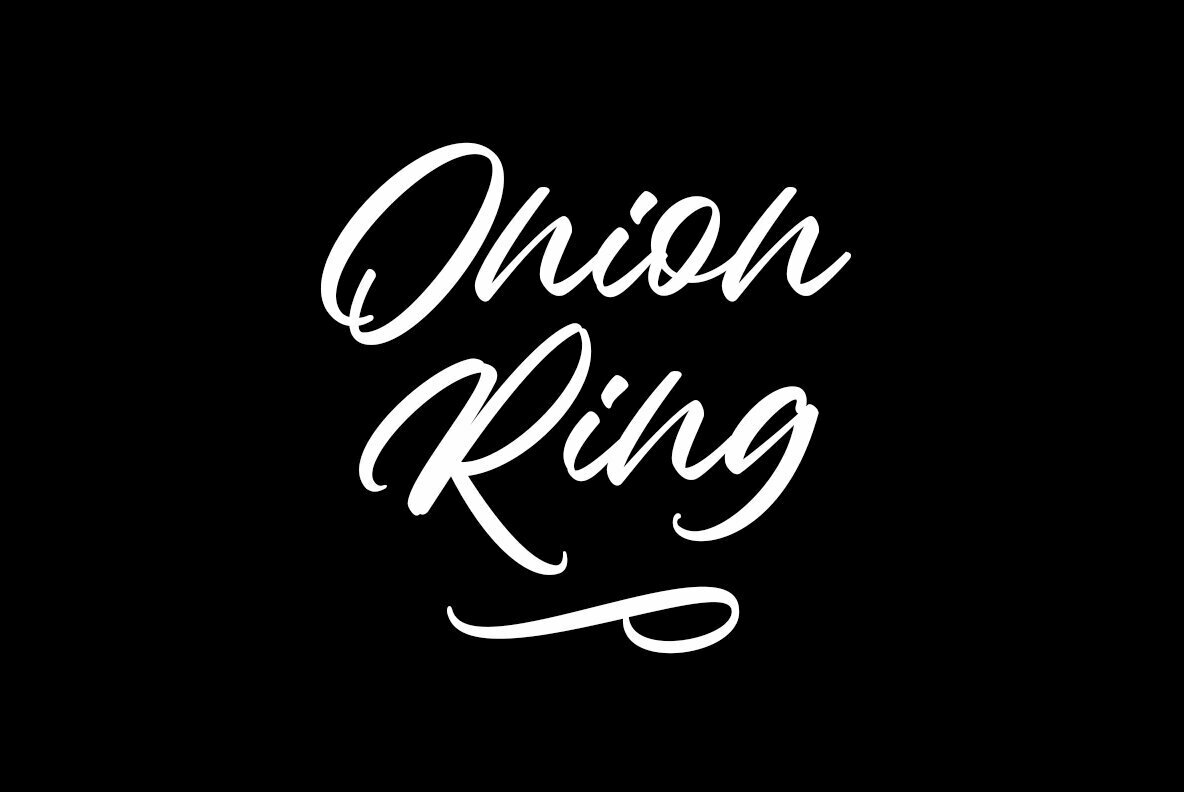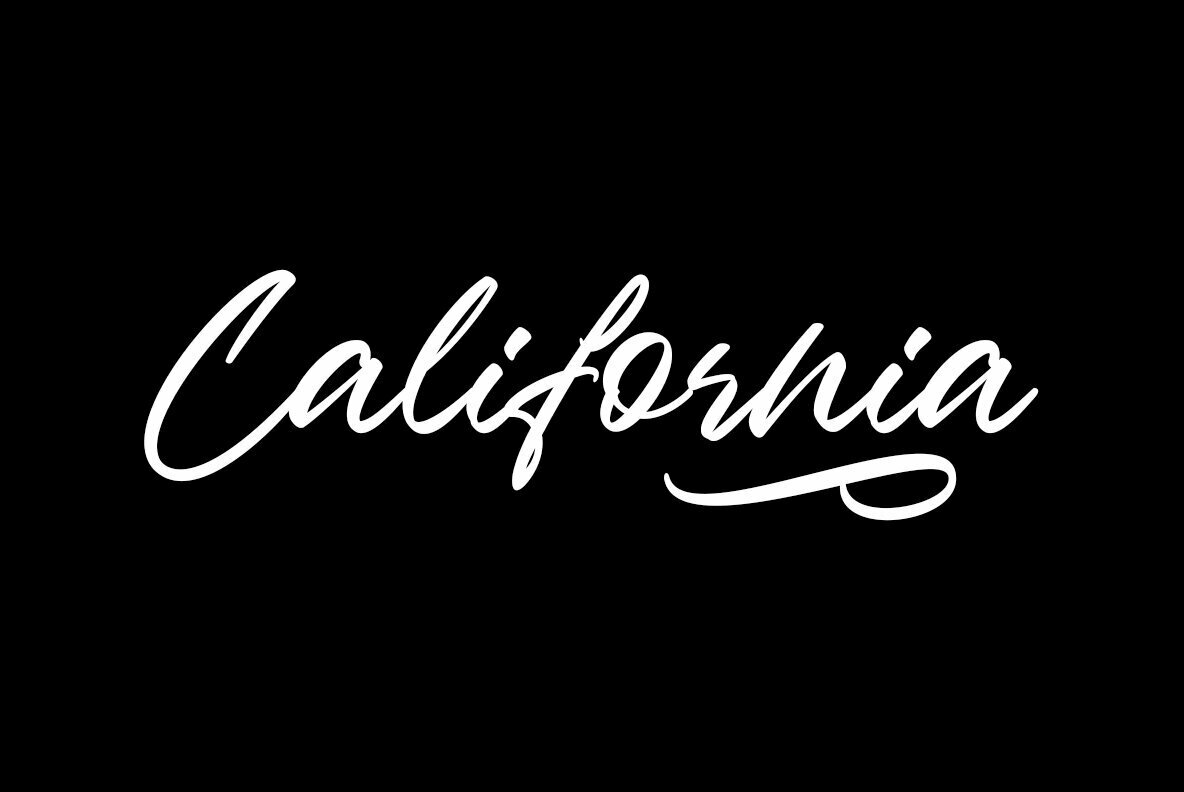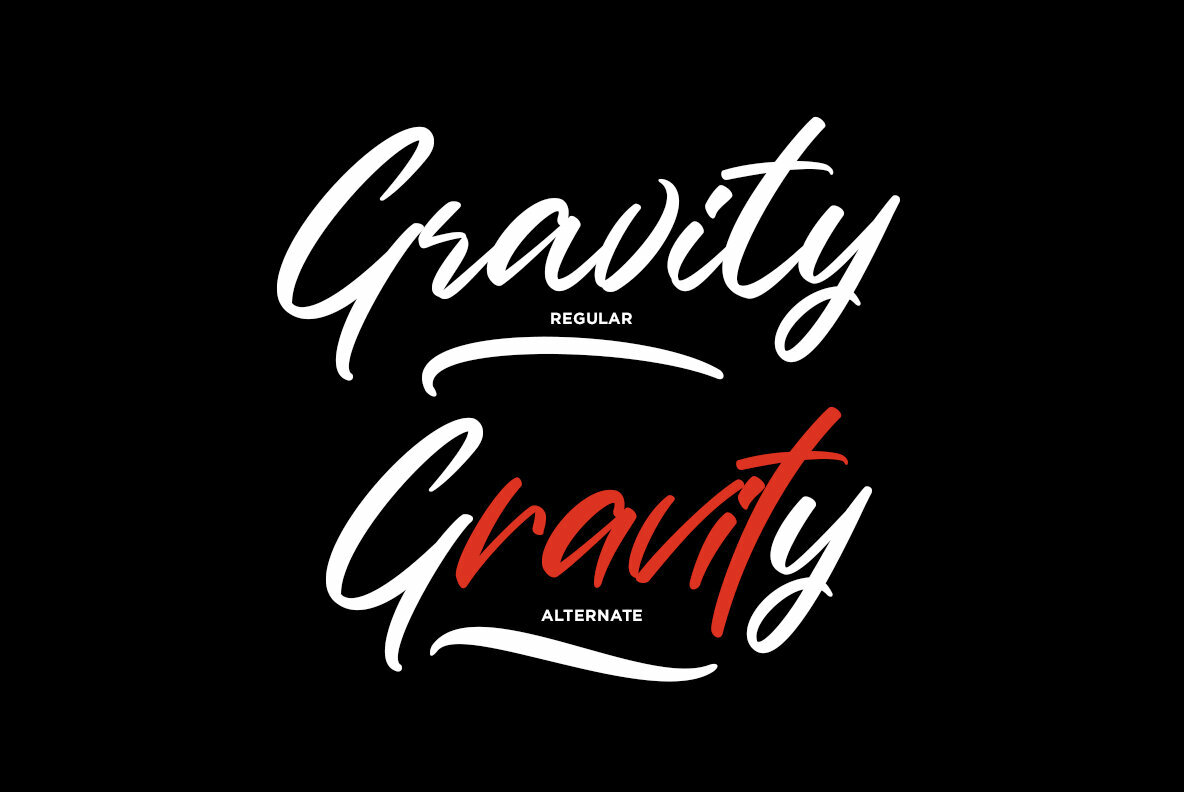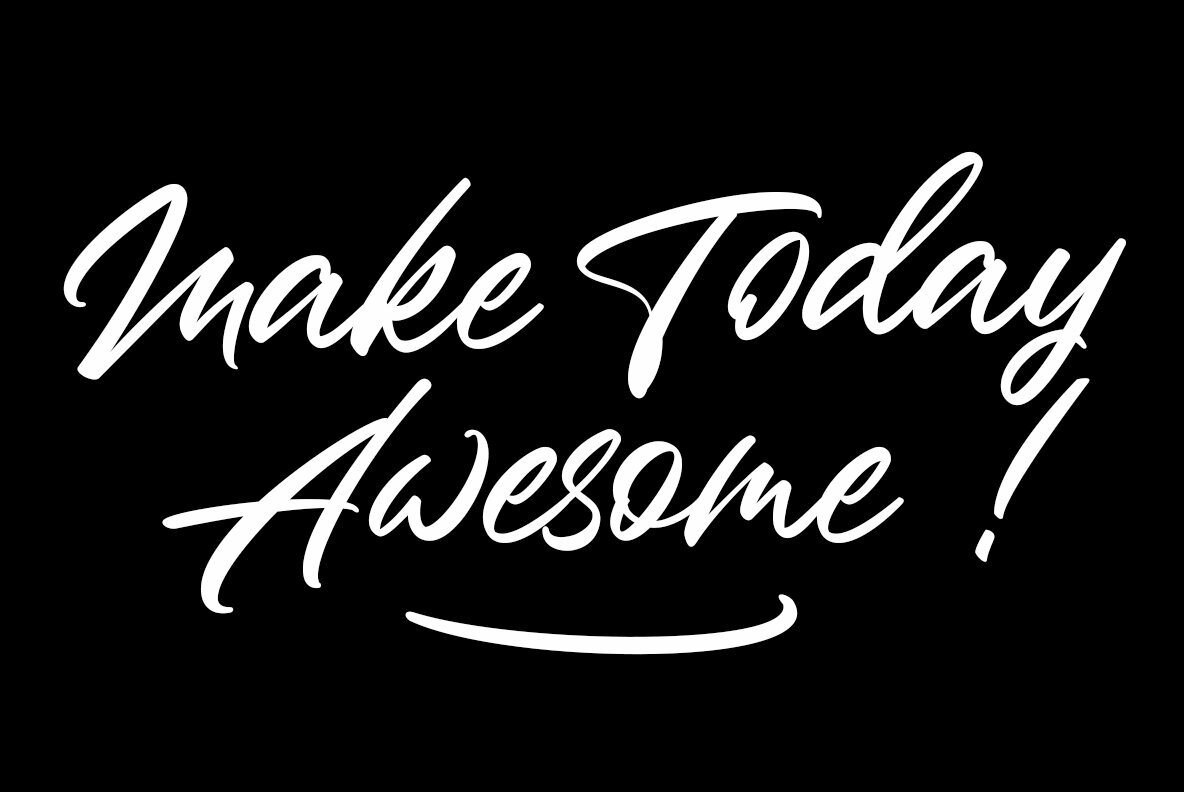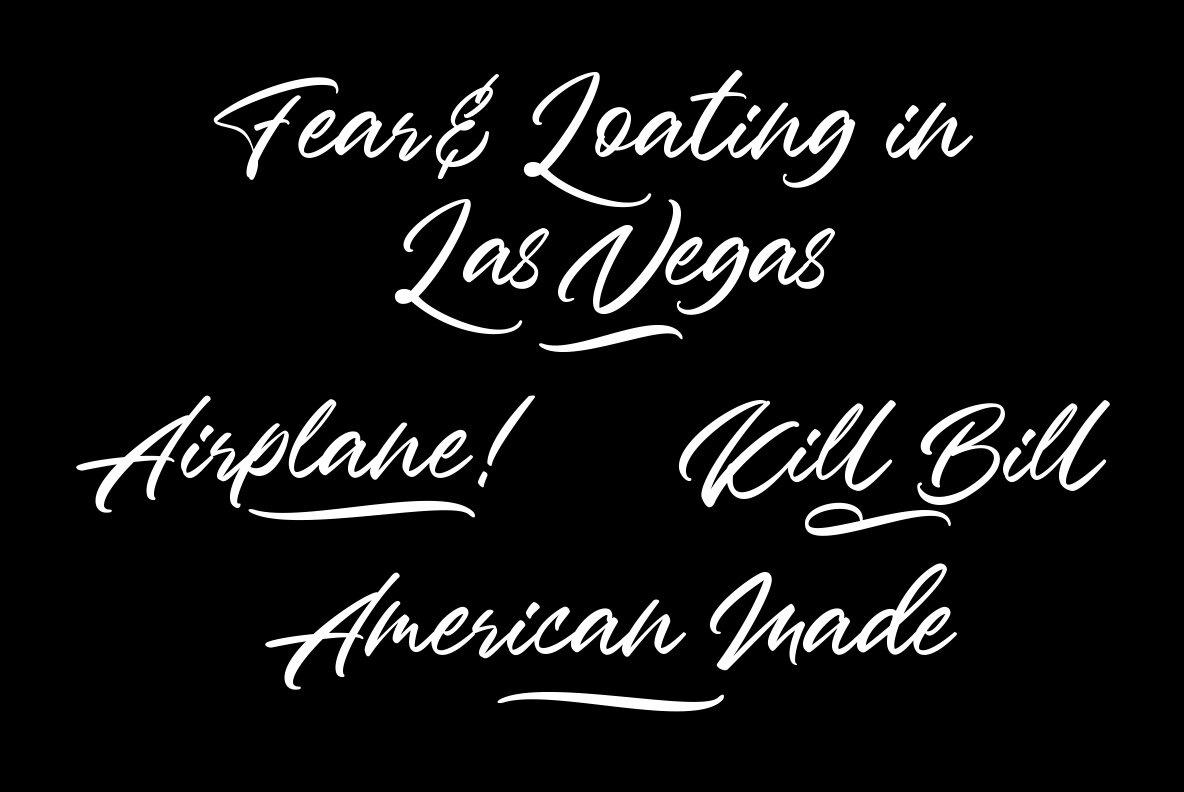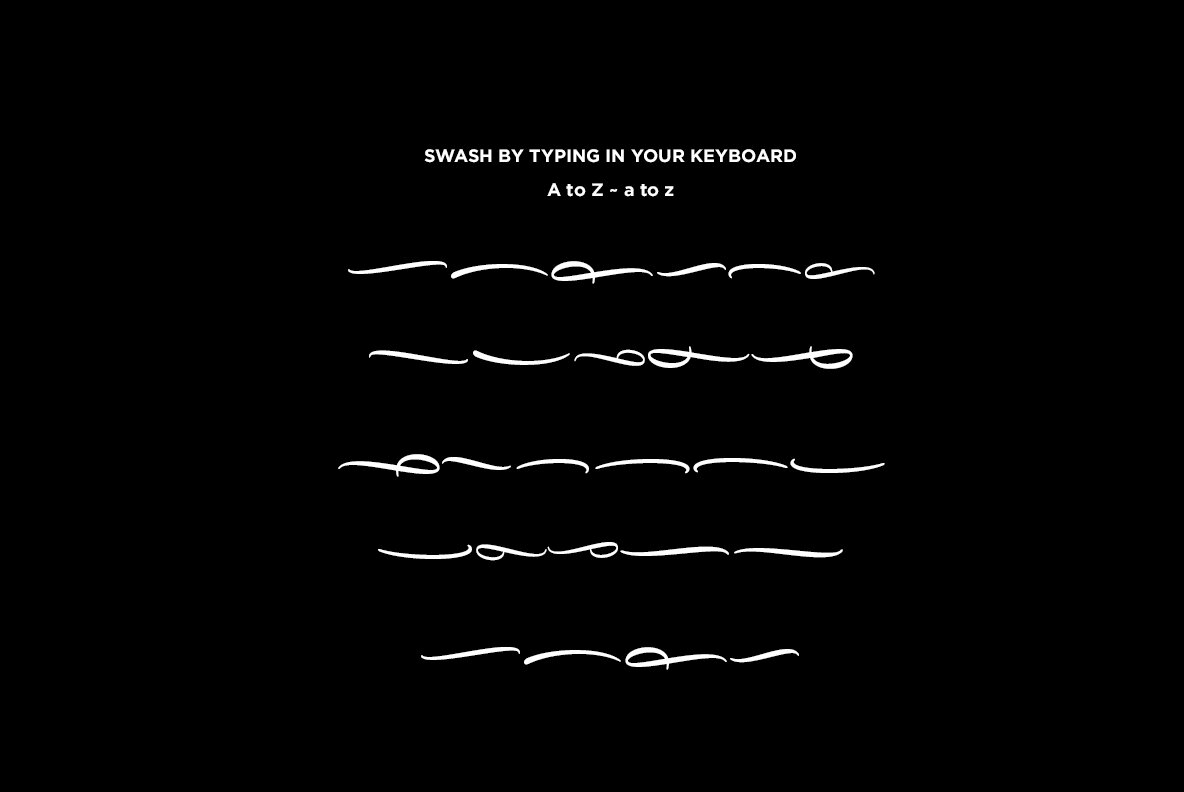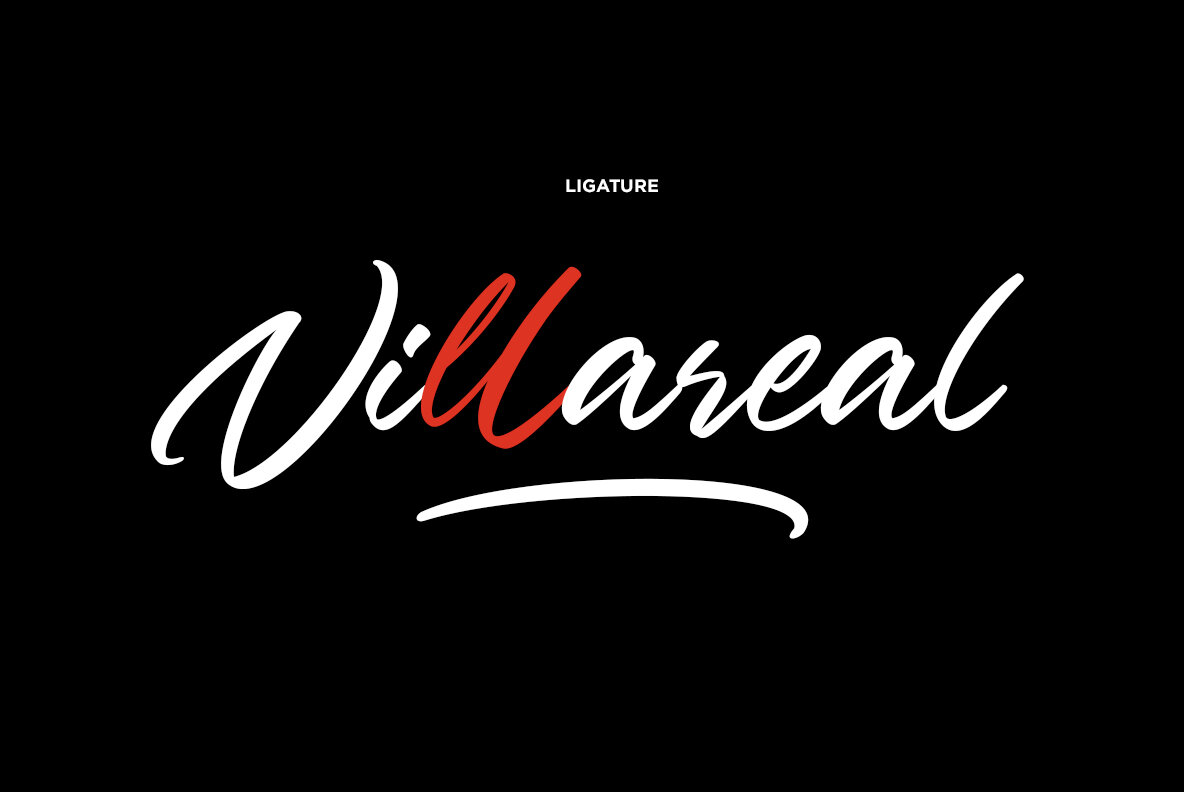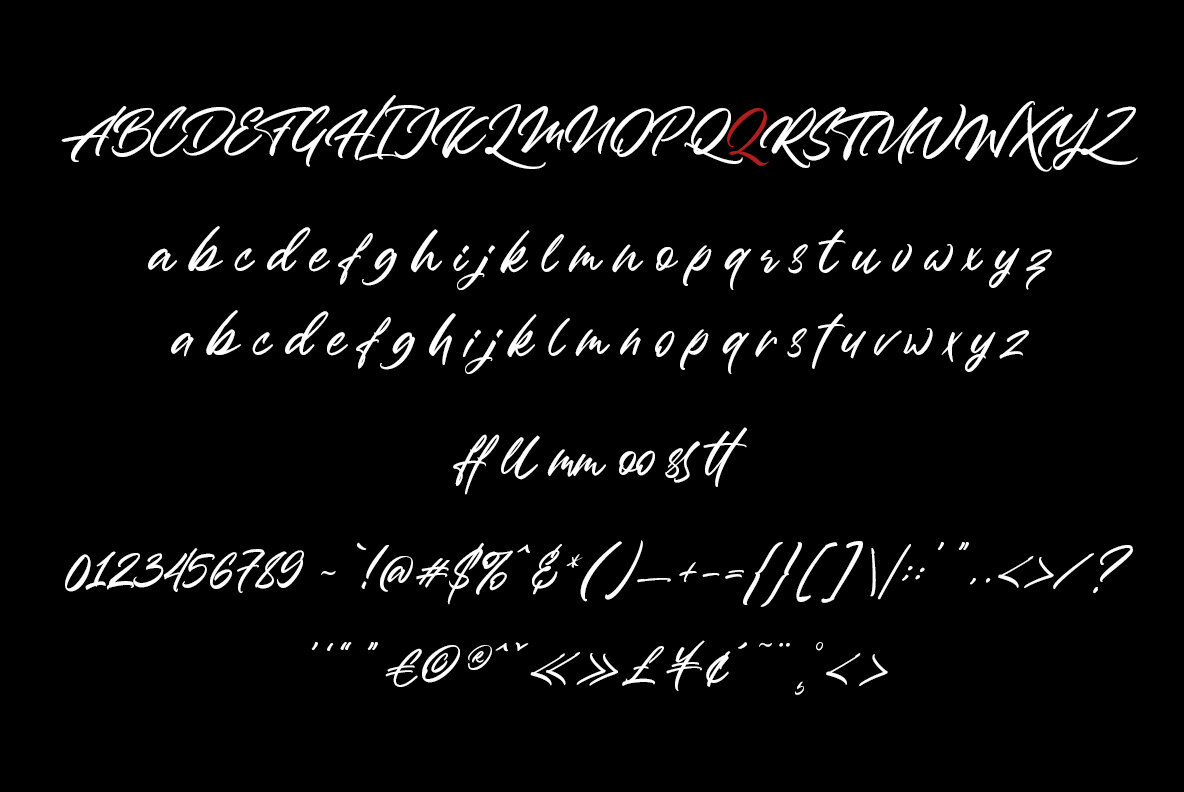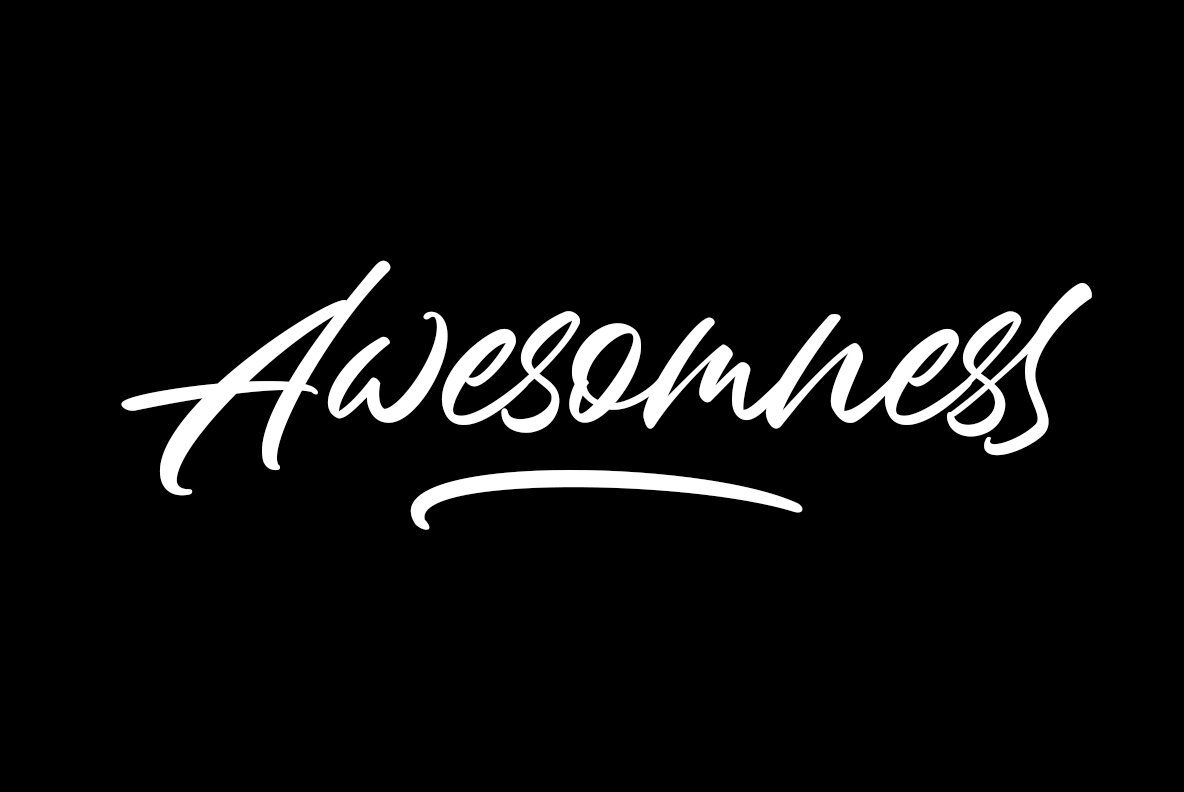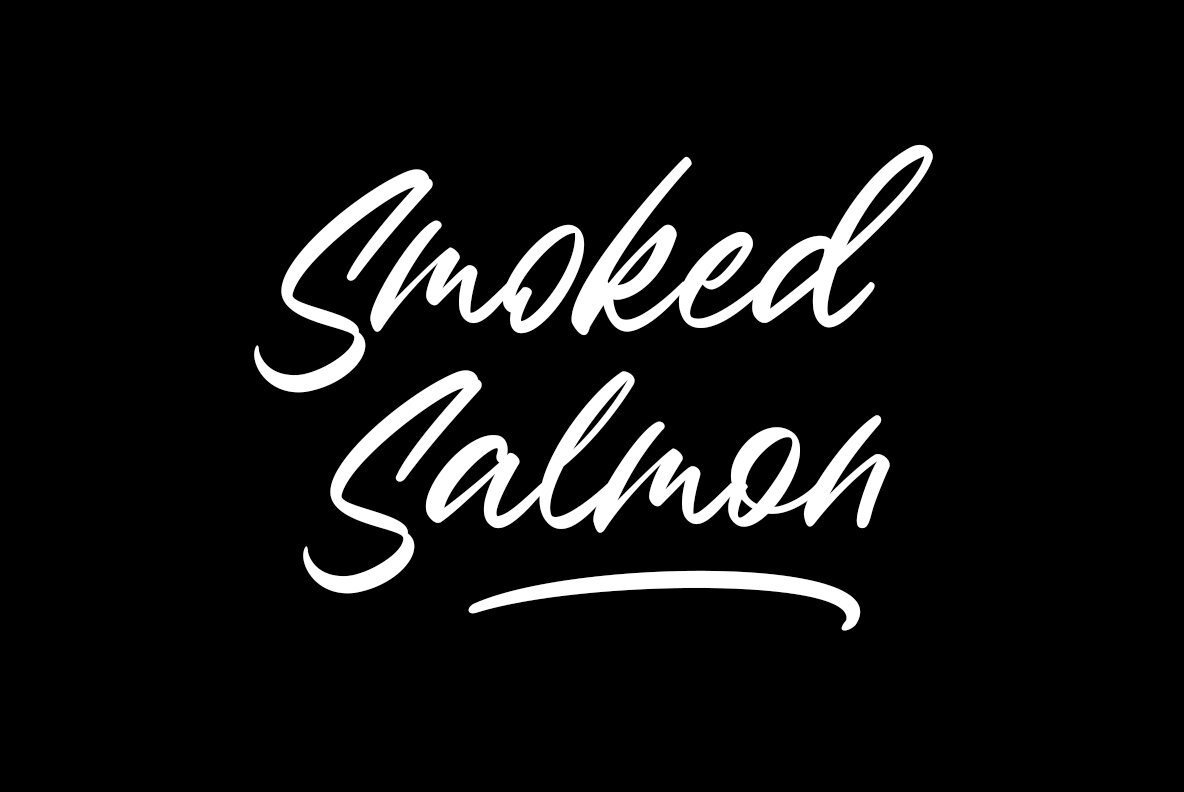
Quintton Font
Quintton by TypoBureau Studio offers a casual yet clean brush stroke aesthetic. This font embodies a handmade feel, making it an ideal choice for a variety of design projects. From logo design to invitations, Quintton lends a personal touch while maintaining a polished appearance.Quintton: A Refined Brush Script for Versatile Design